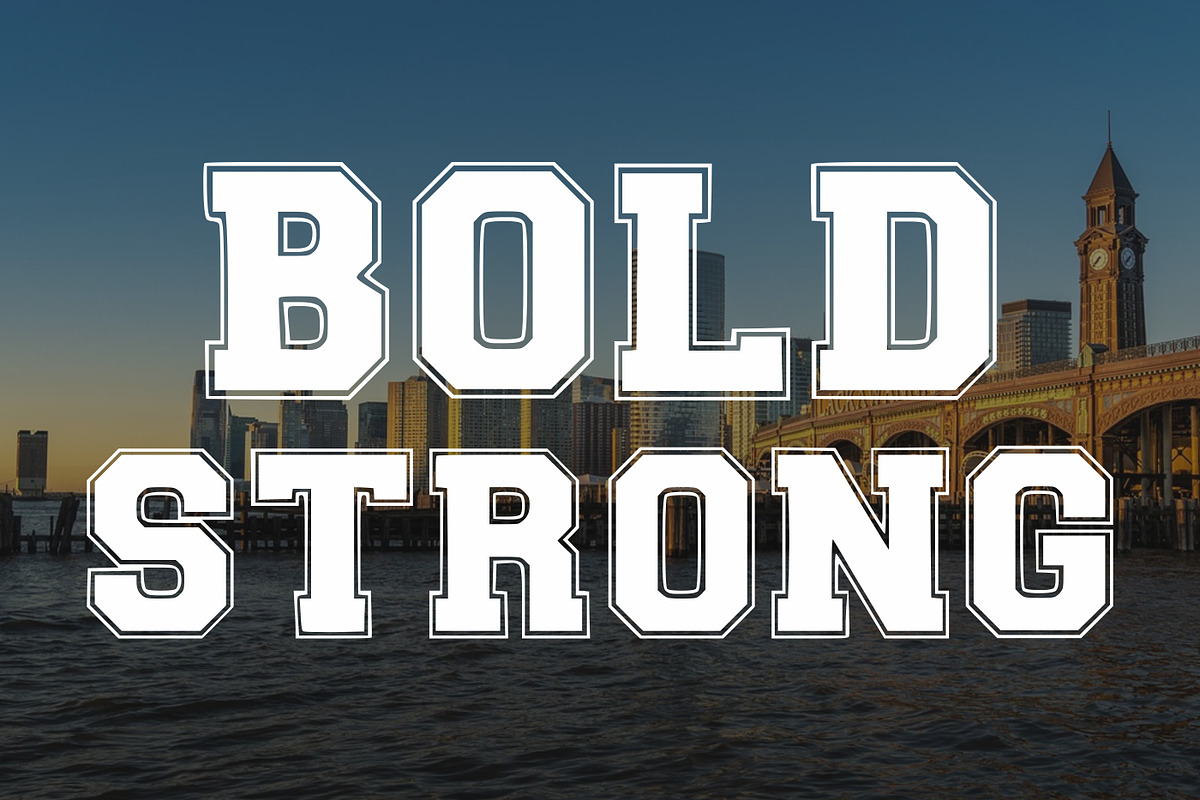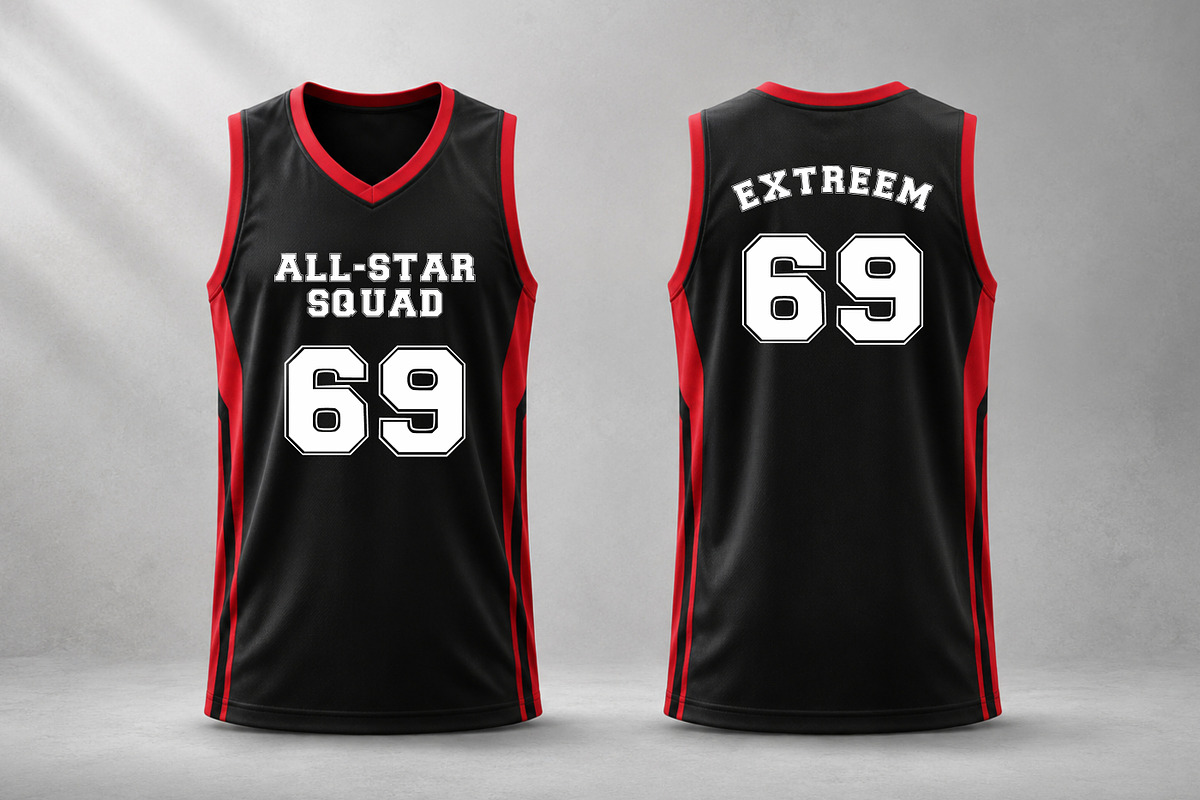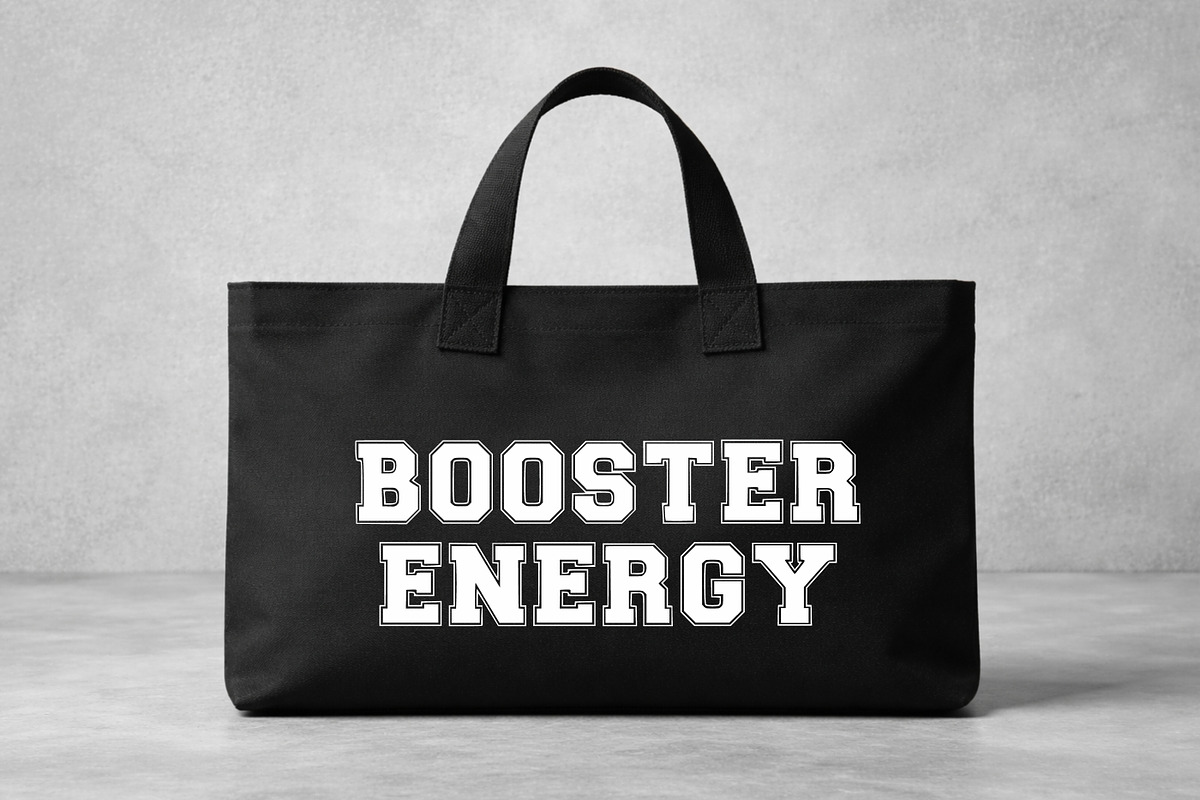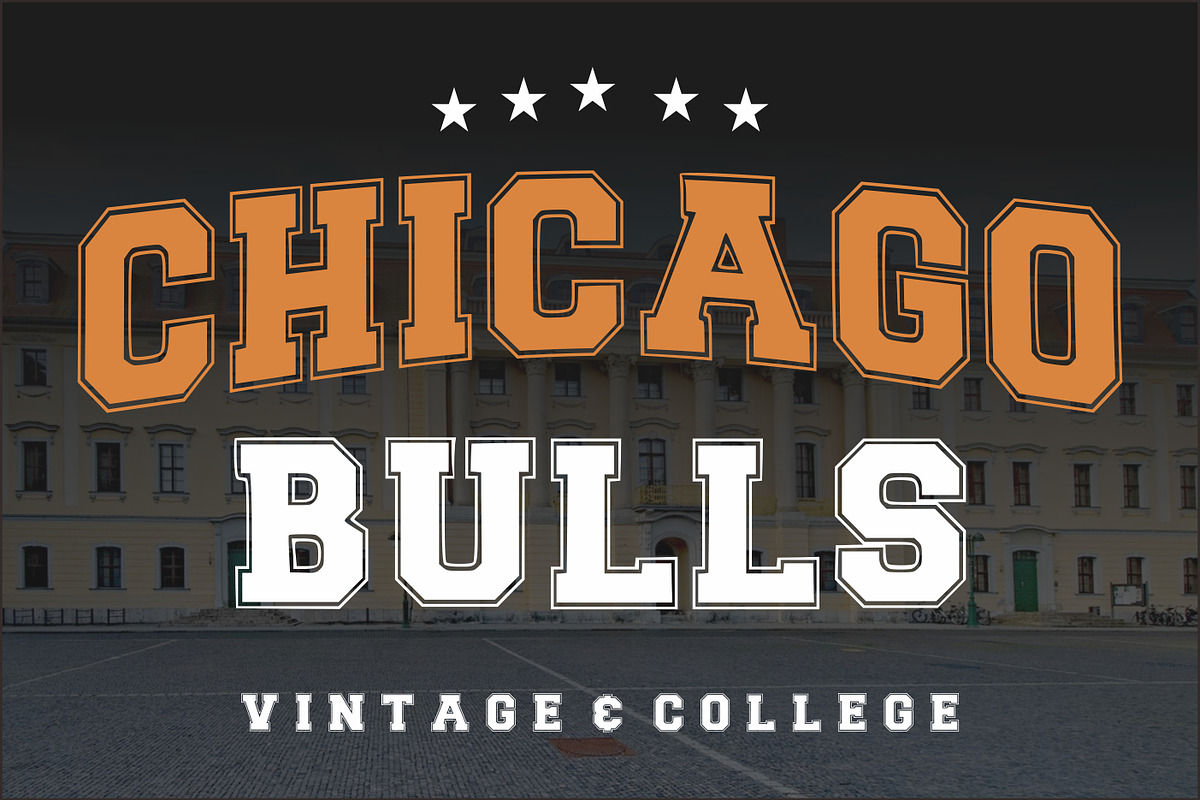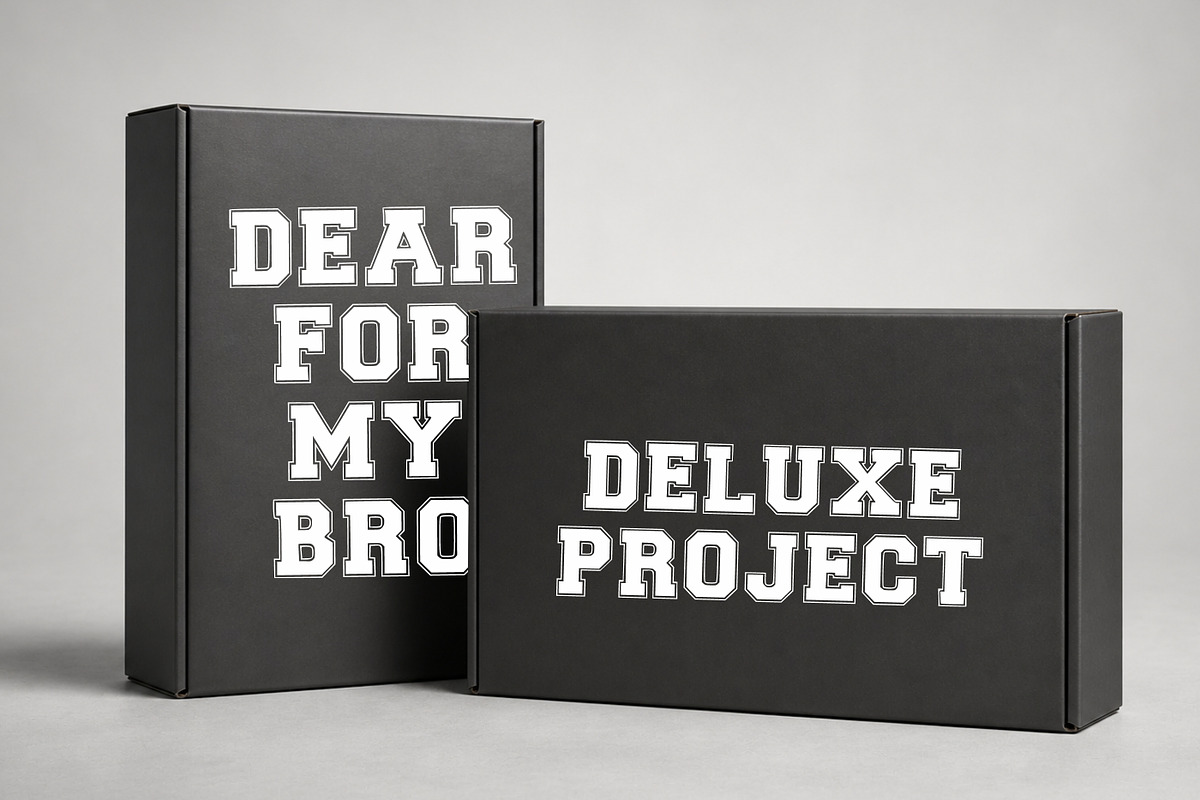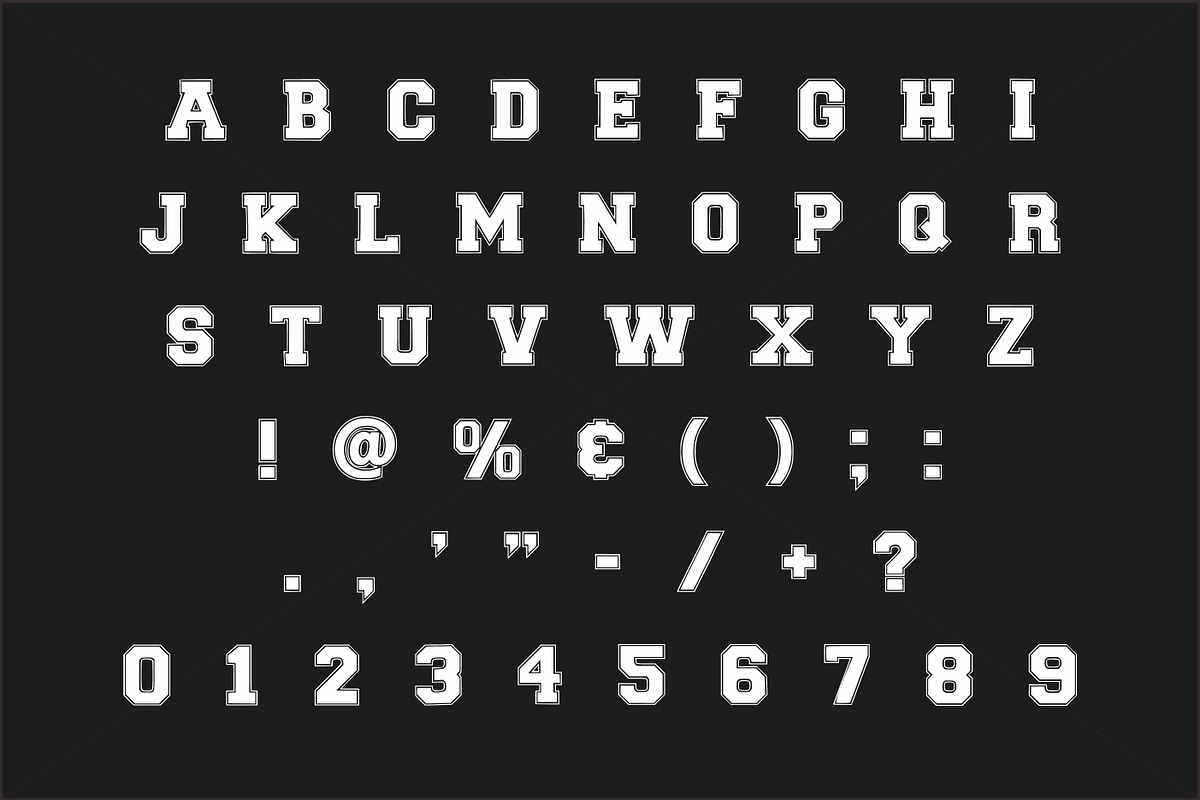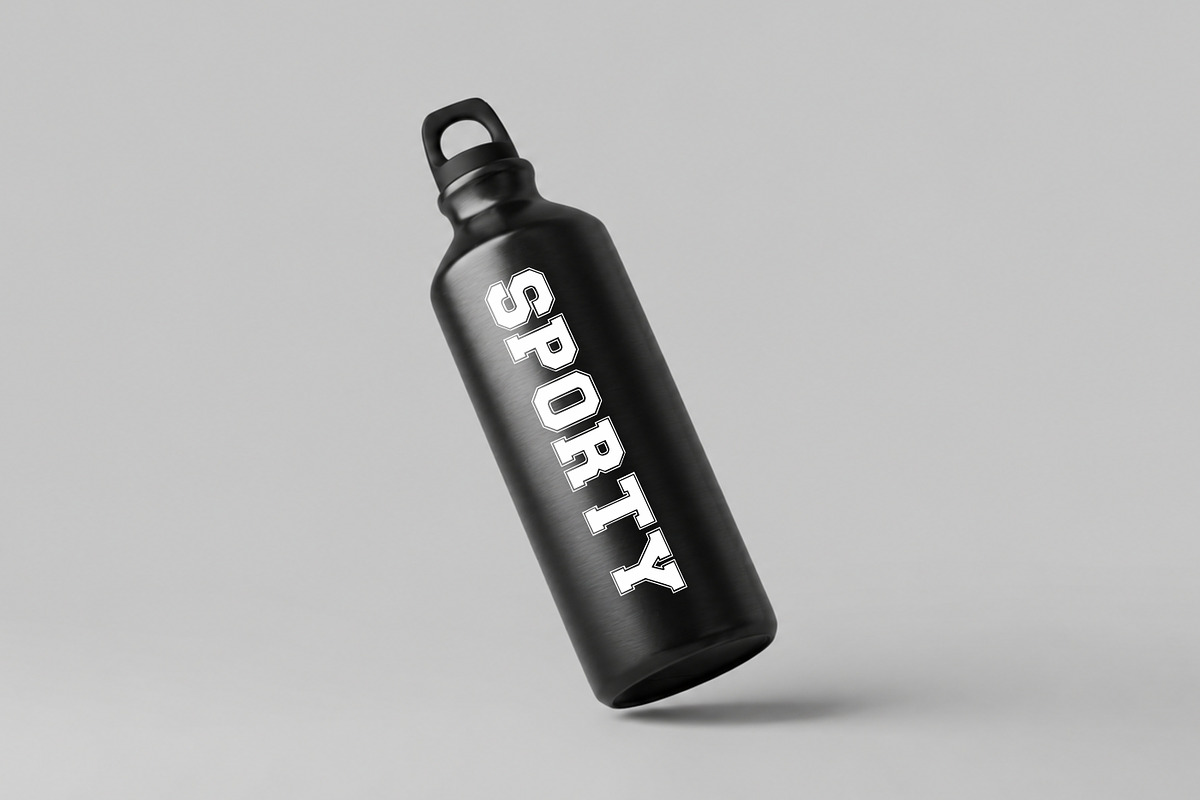
Chicago Bulls
Chicago Bulls Varsity Vintage Font is a bold and powerful collegiate-style typeface inspired by classic American sports lettering. Designed with strong slab shapes, outlined details, and a retro athletic feel, this font is perfect for creating eye-catching designs with a vintage college vibe.
Ideal for sports branding, team merchandise, posters, apparel, logos, and streetwear designs, this font brings a timeless varsity aesthetic combined with modern versatility.
Whether you're designing for basketball themes, university branding, or vintage-inspired graphics, this font delivers strong visual impact and authentic athletic character.
- Uppercase letters
- Bold varsity / college style
- Layered / outline-friendly design
- Vintage athletic look